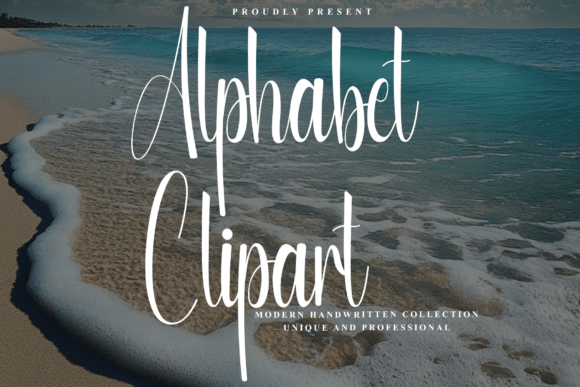
The Elusive Font: A Designer’s Quest for Luxury and Sophistication
I’ll never forget the time I was working on a luxury branding project for a high-end fashion client. I had spent hours scouring the internet for the perfect font, but nothing seemed quite right. That was until I stumbled upon Alphabet Clipart Font. Its ultra-thin, elongated letterforms and delicate swashes immediately caught my eye, and I knew I had found the one. In this article, I’ll share my experience with Alphabet Clipart, its features, and how to make the most of this stunning font.
What Makes Alphabet Clipart Font So Special?
Alphabet Clipart Font is a true showstopper, designed specifically for luxury branding, photography watermarks, editorial layouts, and high-fashion advertisements. Its high-contrast verticality and refined “signature” look exude quiet confidence and professional grace. Here are some of the features that make Alphabet Clipart stand out:
- ✨ Ultra-thin, elongated letterforms for a luxurious feel
- ✅ Delicate swashes for added sophistication
- ⚠️ High-contrast verticality for a refined look
As with any font, Alphabet Clipart has its strengths and weaknesses. Here’s my honest review:
- ✨ The font’s unique, elegant design makes it perfect for high-end branding and advertising
- ✅ The OpenType features, including glyphs and stylistic alternates, offer endless creative possibilities
- ✅ The font’s readability, even at small sizes, is impressive
- 🤔 The font’s ultra-thin lines can be challenging to read on certain backgrounds or at very small sizes
- ⚠️ Some users may find the font’s elegance and sophistication limiting for more playful or casual projects
The Story Behind Alphabet Clipart
While the true story behind Alphabet Clipart remains a mystery, it’s easy to imagine a designer inspired by the clean lines and elegance of coastal typography. Perhaps they sought to create a font that would evoke the feeling of a refreshing ocean breeze on a hot summer day. Whatever the inspiration, Alphabet Clipart is a true gem in the world of typography.
| Font Name | Alphabet Clipart Font |
| Author | Plafont store |
| What is Alphabet Clipart Font best suited for? | Luxury branding, photography watermarks, editorial layouts, and high-fashion advertisements. |
| Is Alphabet Clipart a difficult font to read? | No, Alphabet Clipart is surprisingly readable, even at small sizes, thanks to its high-contrast design. |